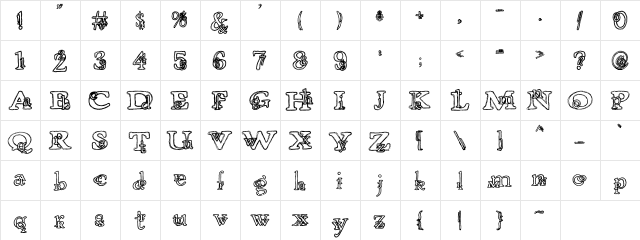
PC Double Vision Monogram 1
Design Context for PC Double Vision Monogram Typeface
PC Double Vision Monogram uses fixed-width spacing throughout, giving it the structured, systematic character associated with coding environments and technical documentation.
A natural fit for code editors, technical documentation, developer-focused branding, and terminal-inspired UI.
Pro Tip: Pair PC Double Vision Monogram with a proportional sans for UI contexts where code-style labels and regular body copy need to coexist.